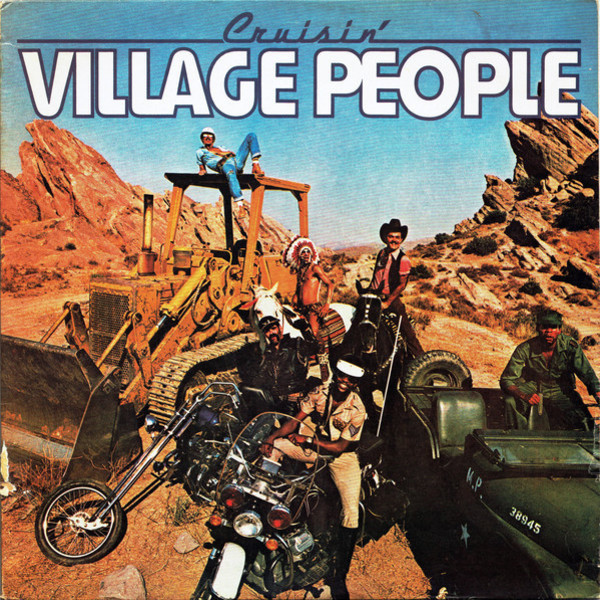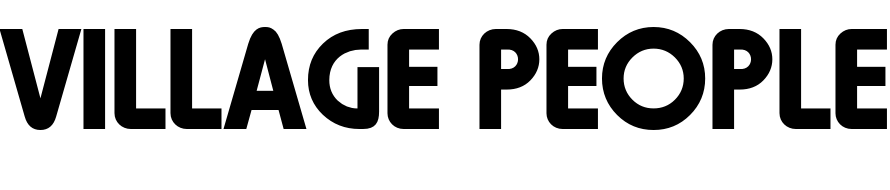
Cruisin' (Village People) Font
Fonts in UseCruisin’ is the third studio album by the Village People, released in 1978. The album features popular disco hits such as "Y.M.C.A." and "Macho Man".
The album title uses Gillies Gothic by William S. Gillies. For the band name, Harry, a rounded sans-serif by Marty Goldstein, published by VGC in 1966, was chosen. Digital revivals of Harry can be found here.